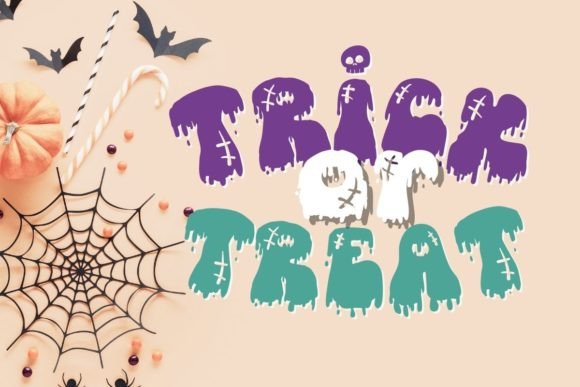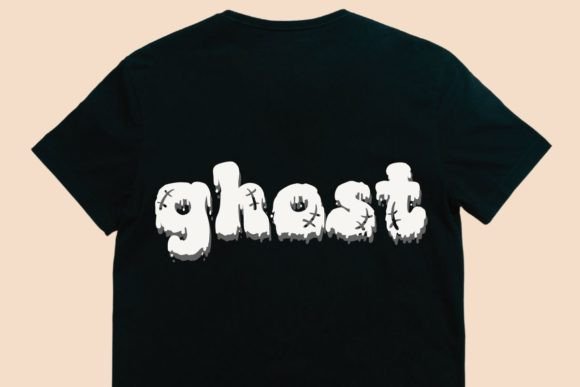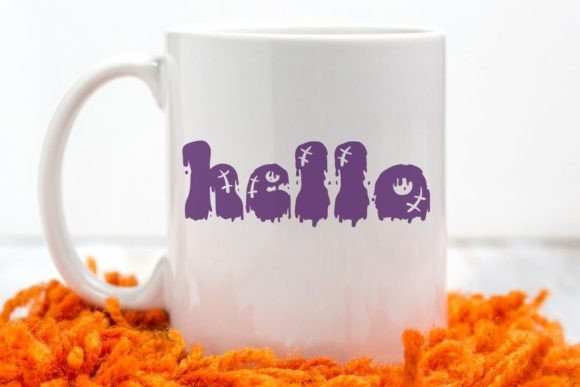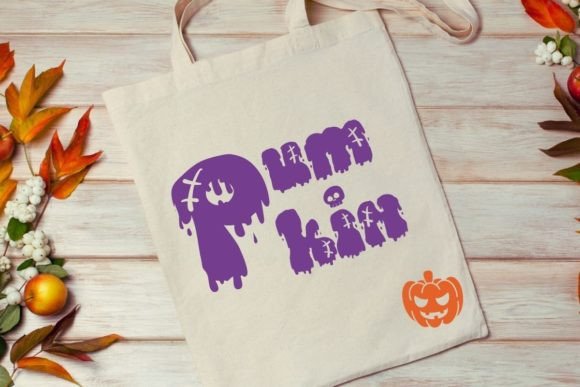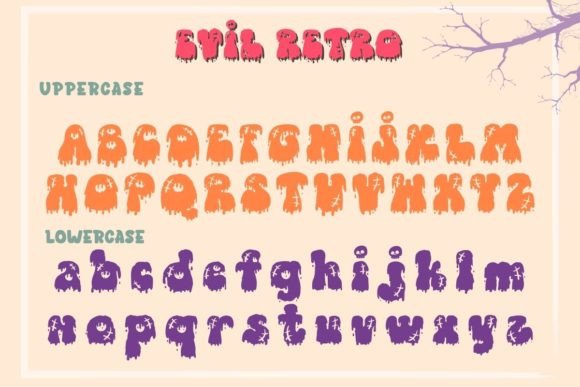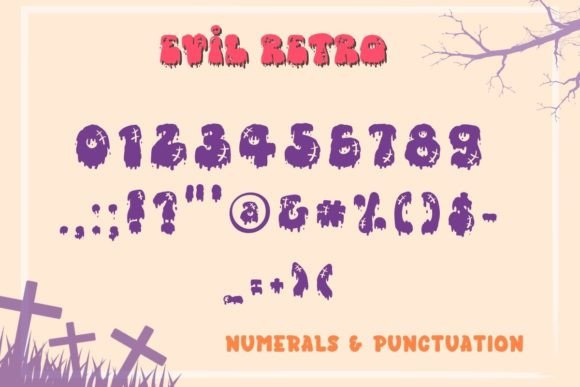
Evil Font: The Perfect Groovy Display Font for Spooky Designs
Are you looking for a font that screams Halloween or horror-themed projects? Look no further than the Evil Font, a groovy display font that’s sure to add a touch of spookiness to your designs. With its unique style that resembles a drop of blood, this font is perfect for designers and crafters who want to create eye-catching and eerie products.
What is Evil Font?
Evil Font is a display font designed to add a touch of evil to your designs. Its unique style is reminiscent of a drop of blood, making it perfect for Halloween or horror-themed projects. The font is highly versatile and can be used to create a wide range of products, from banners and social media posts to mugs, cards, shirts, and more.
Key Features of Evil Font
- Groovy Display Font: Evil Font is a display font designed to grab attention and add a touch of spookiness to your designs.
- Unique Style: The font’s style resembles a drop of blood, making it perfect for Halloween or horror-themed projects.
- Highly Versatile: Evil Font can be used to create a wide range of products, from banners and social media posts to mugs, cards, shirts, and more.
Uses of Evil Font
Evil Font is perfect for a wide range of projects, including:
- Halloween or Horror-Themed Projects: The font’s spooky style makes it perfect for Halloween or horror-themed projects, such as party invitations, decorations, and more.
- Banners and Signs: Evil Font can be used to create eye-catching banners and signs for Halloween or horror-themed events.
- Social Media Posts: The font can be used to create spooky social media posts that are sure to grab attention.
- Mugs and Water Bottles: Evil Font can be used to create unique and spooky designs for mugs and water bottles.
- Cards and Invitations: The font can be used to create spooky cards and invitations for Halloween or horror-themed parties.
- Shirts and Apparel: Evil Font can be used to create unique and spooky designs for shirts and apparel.
Tips for Using Evil Font
Here are some tips for using Evil Font:
- Use it Sparingly: Evil Font is a bold font, so use it sparingly to add emphasis to your designs.
- Experiment with Colors: The font looks great in bold colors, so experiment with different colors to find the one that works best for your design.
- Pair it with Other Fonts: Evil Font can be paired with other fonts to create a unique and interesting design.
Evil Font is a groovy display font that’s perfect for designers and crafters who want to add a touch of spookiness to their designs. With its unique style that resembles a drop of blood, this font is sure to grab attention and add a touch of evil to your projects. Whether you’re creating Halloween or horror-themed projects, or just want to add a touch of spookiness to your designs, Evil Font is the perfect choice.
- What is Evil Font?: Evil Font is a groovy display font that resembles a drop of blood, making it perfect for Halloween or horror-themed projects.